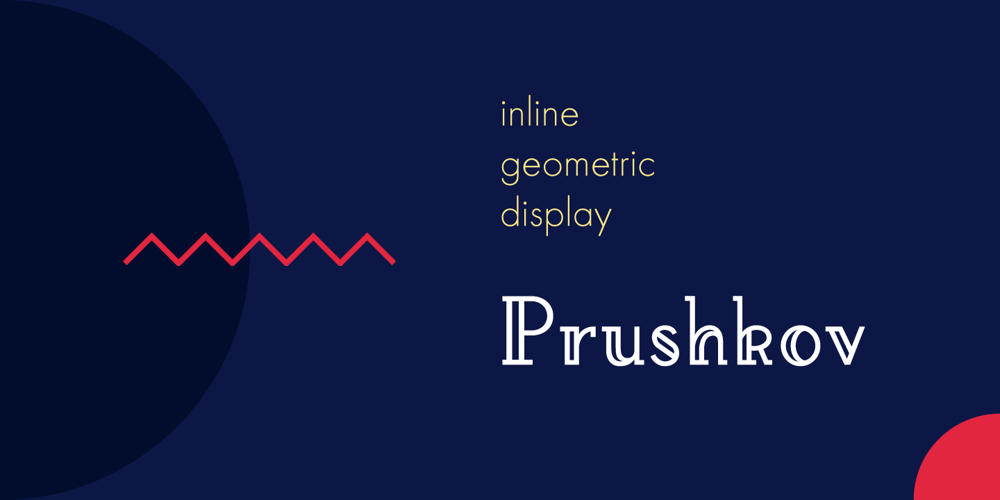
Prushkov Font Family was designed by Piotr Łukaszkiewicz and published by Arrière-garde. Prushkov contains 1 styles and family package options. Prushkov is the first typeface that I made. Its name comes from the town I lived in at the time. The design was inspired by both geometric typefaces like Futura, and didone fonts like Bodoni. Its aim (perhaps quite bold) is to blend high contrast with mathematical excellence.Prushkov will work well as a display font, both in uppercase and lowercase. It has a wide array of stylistic alternates for all of the capitals and some lowercase glyphs too.